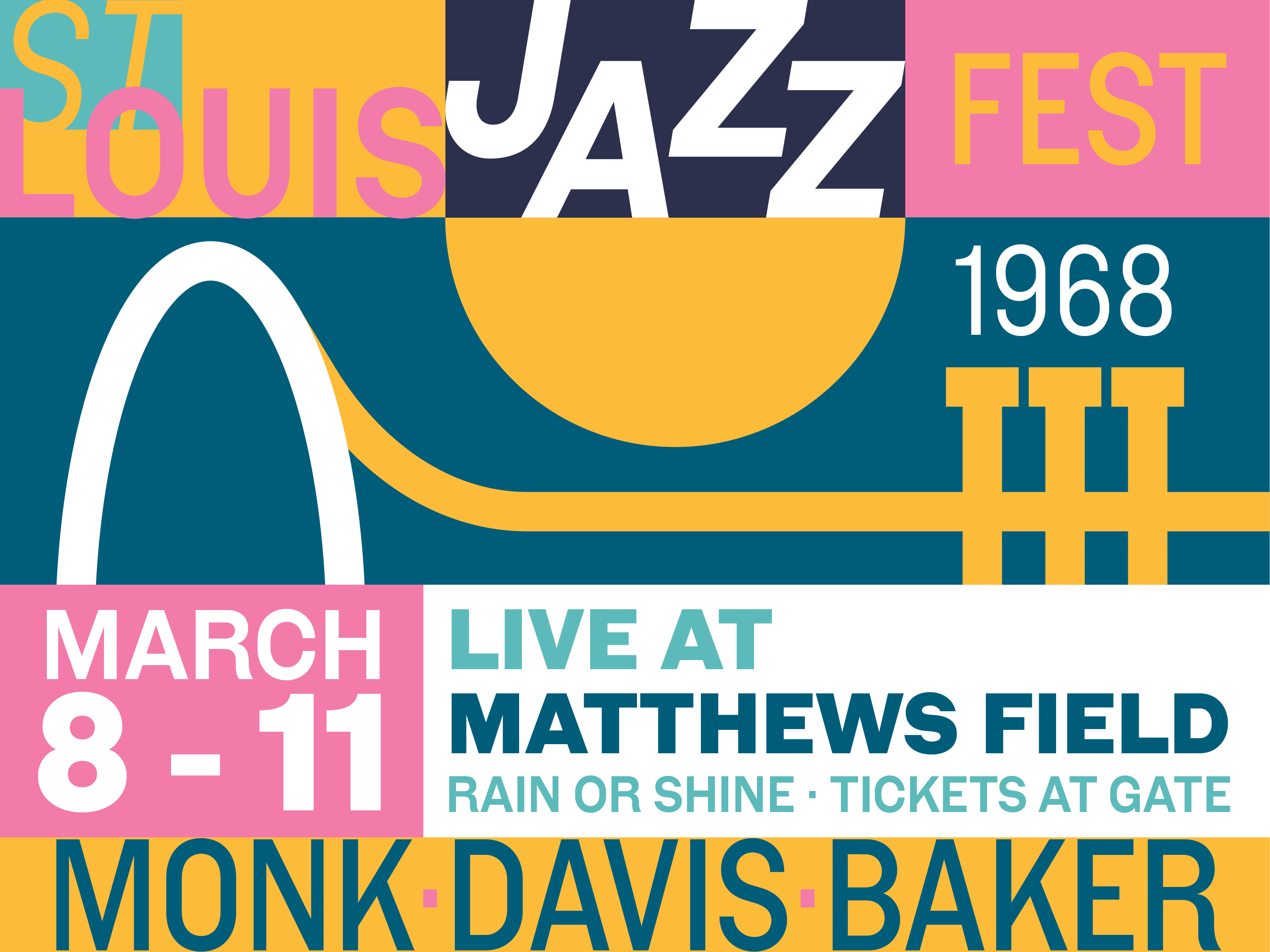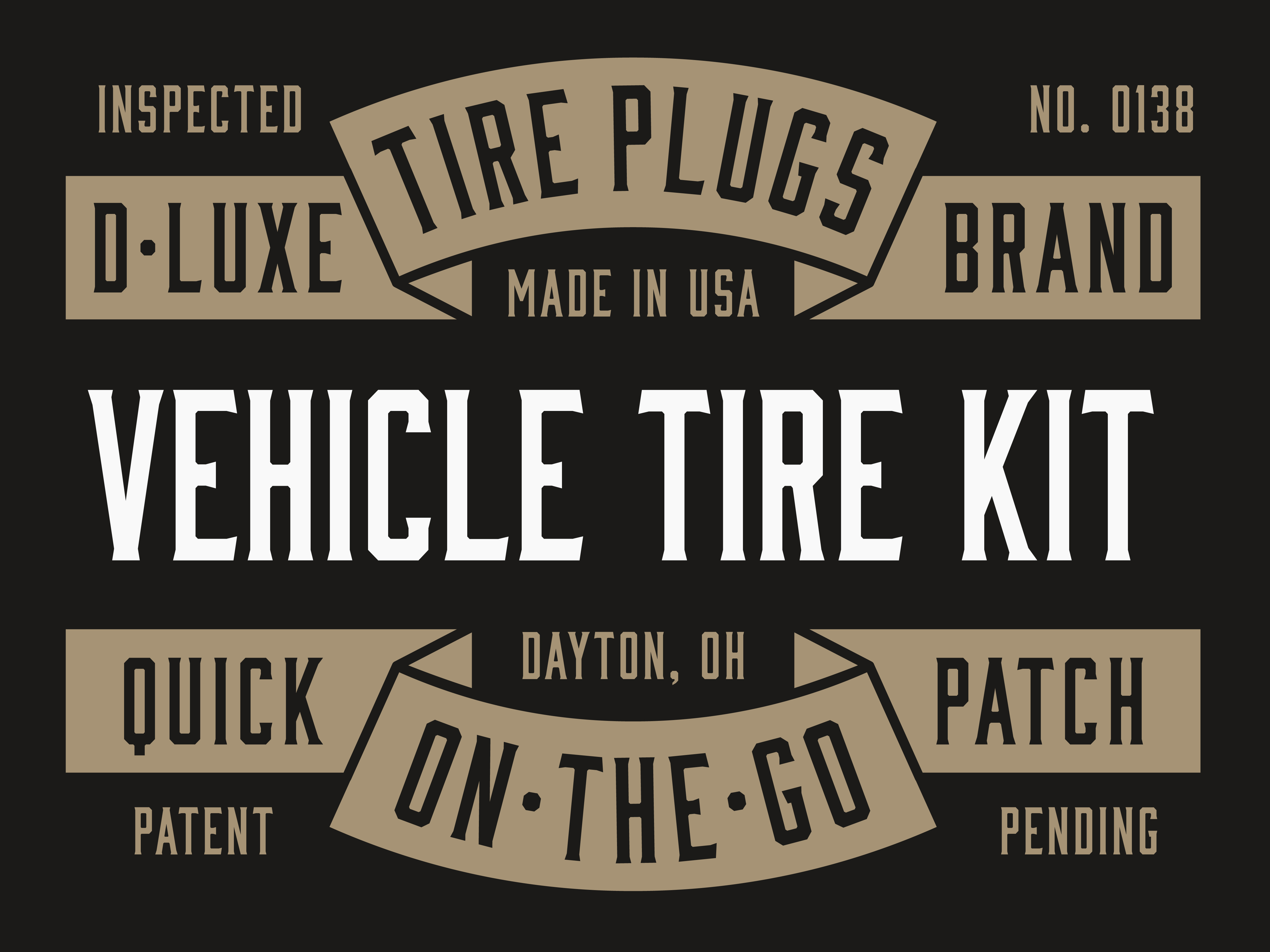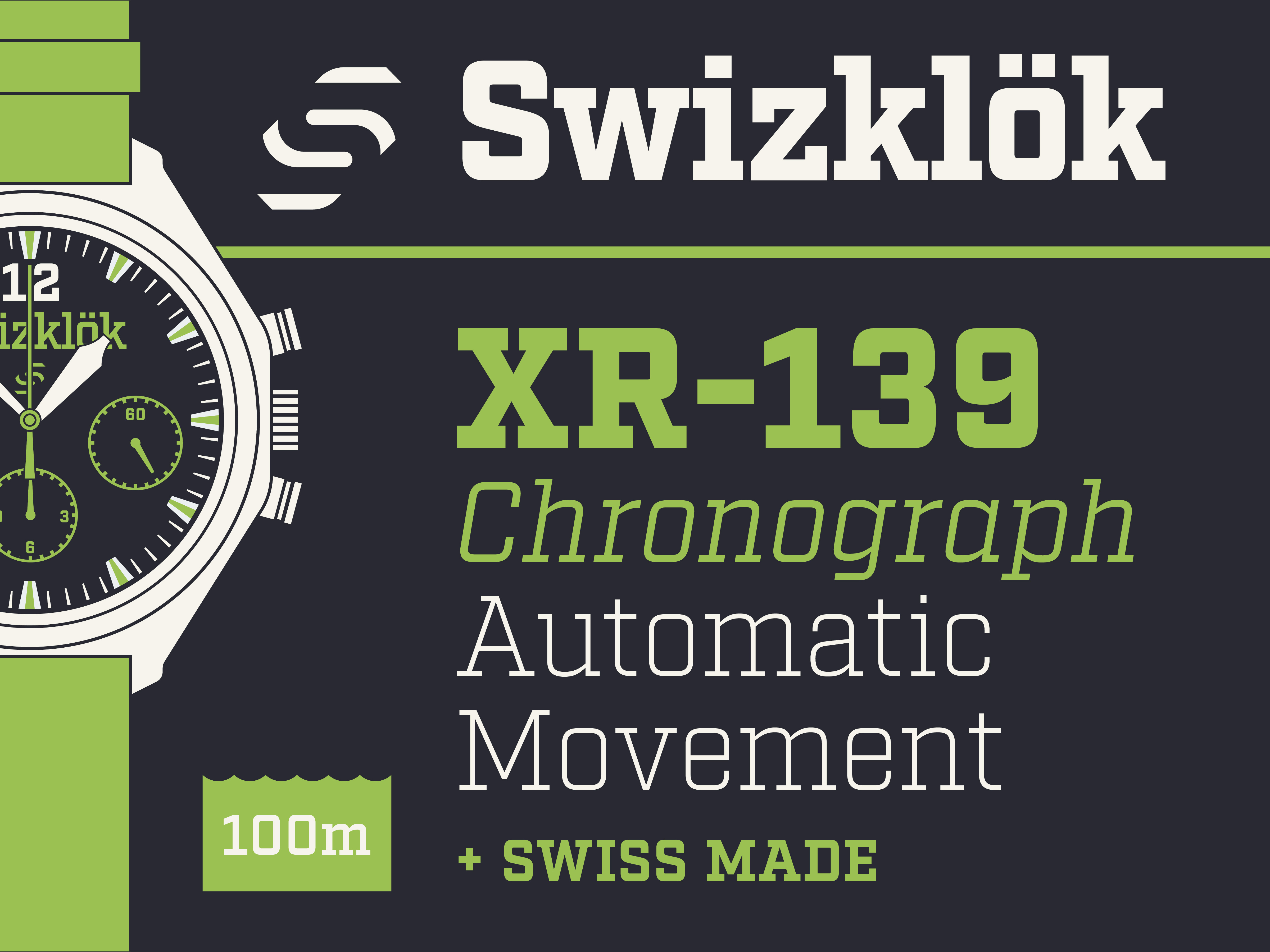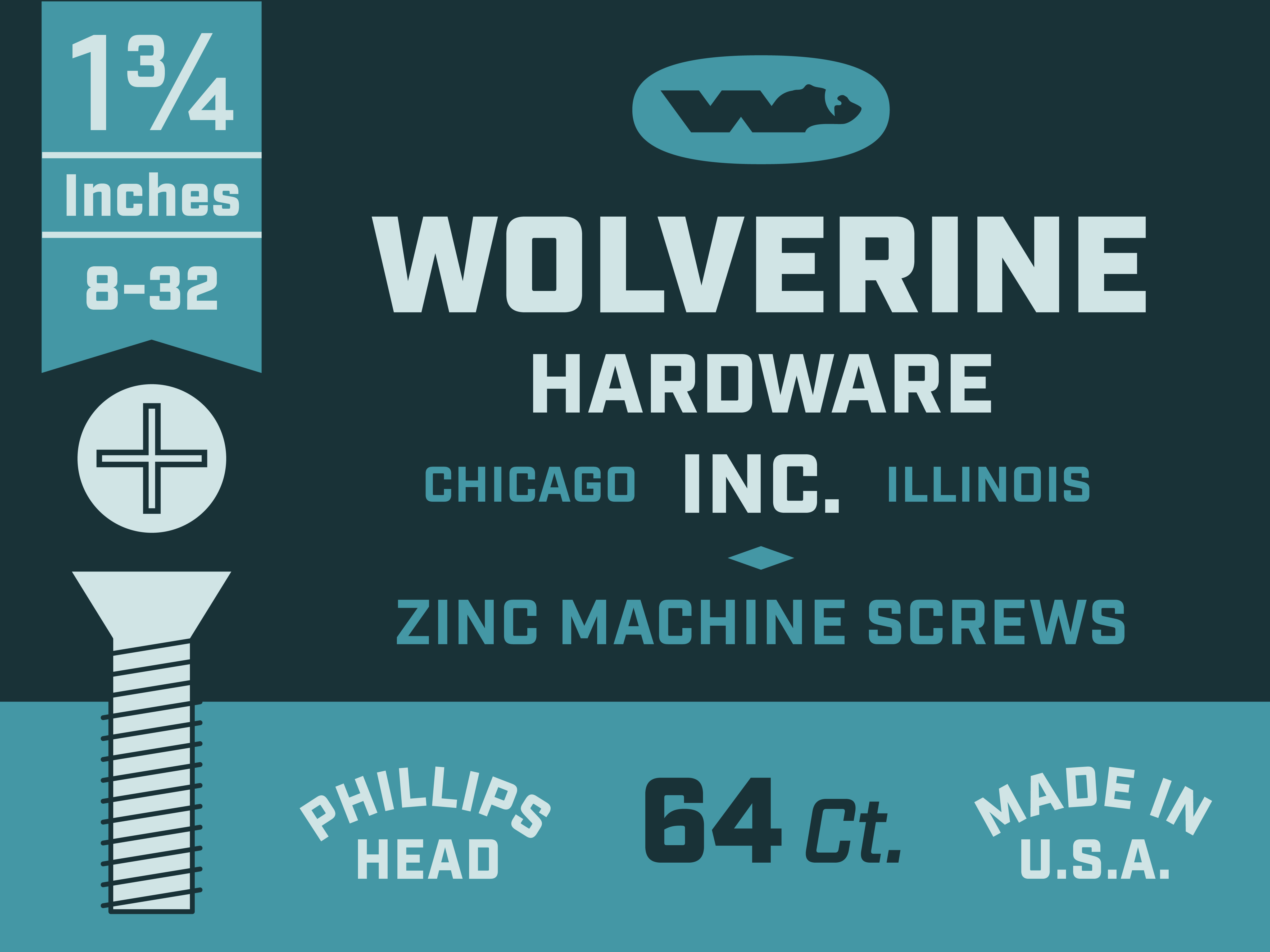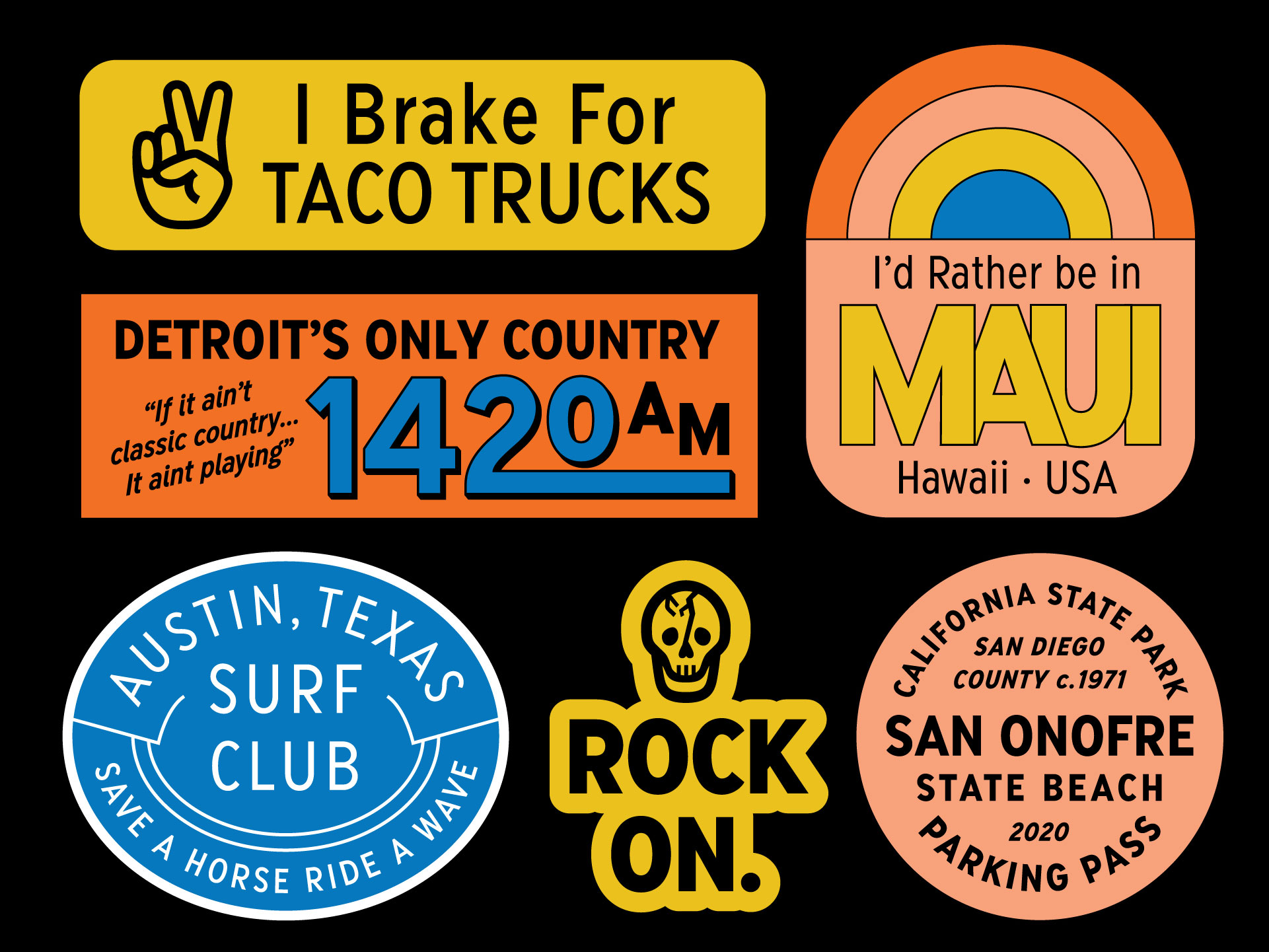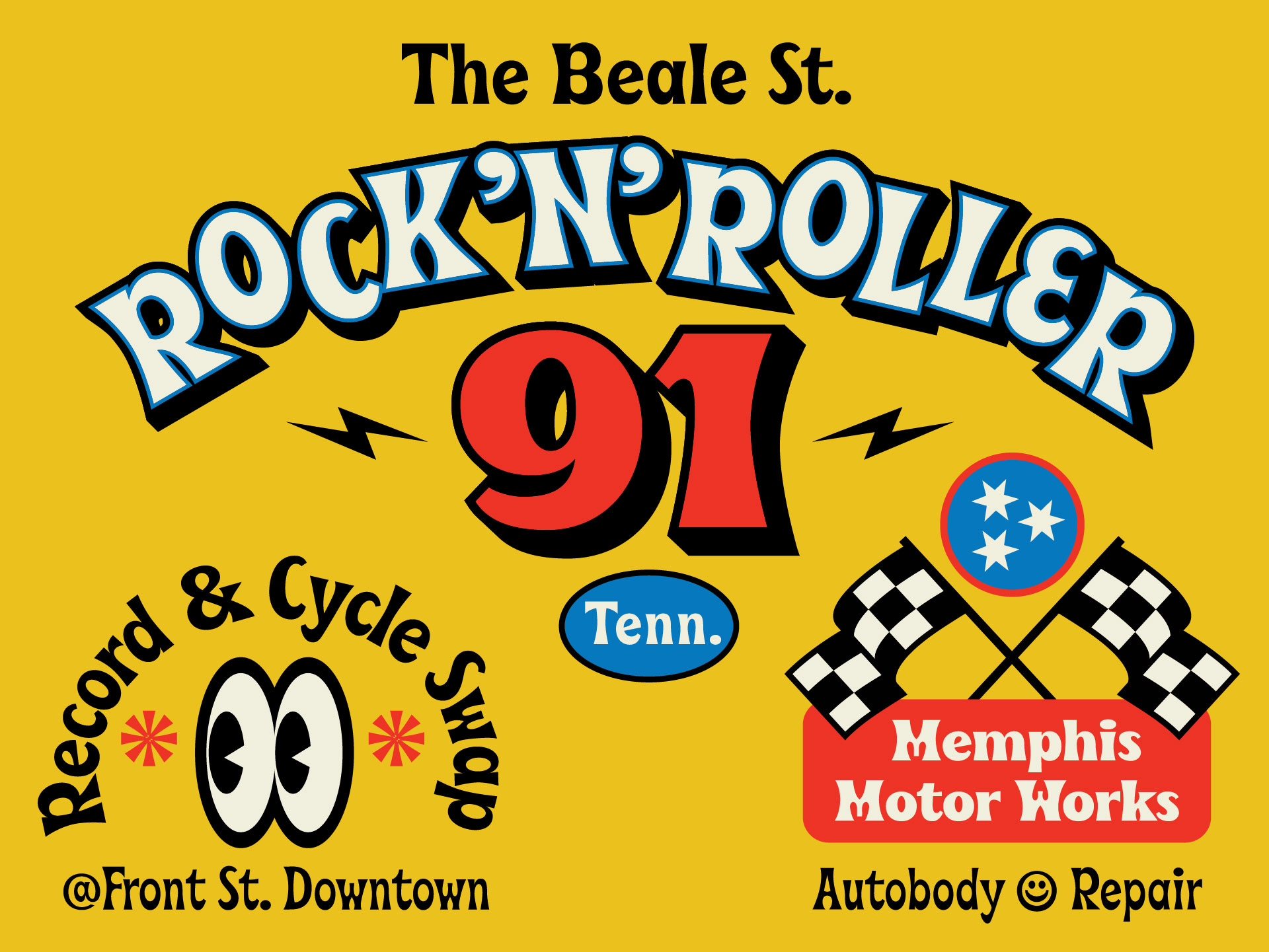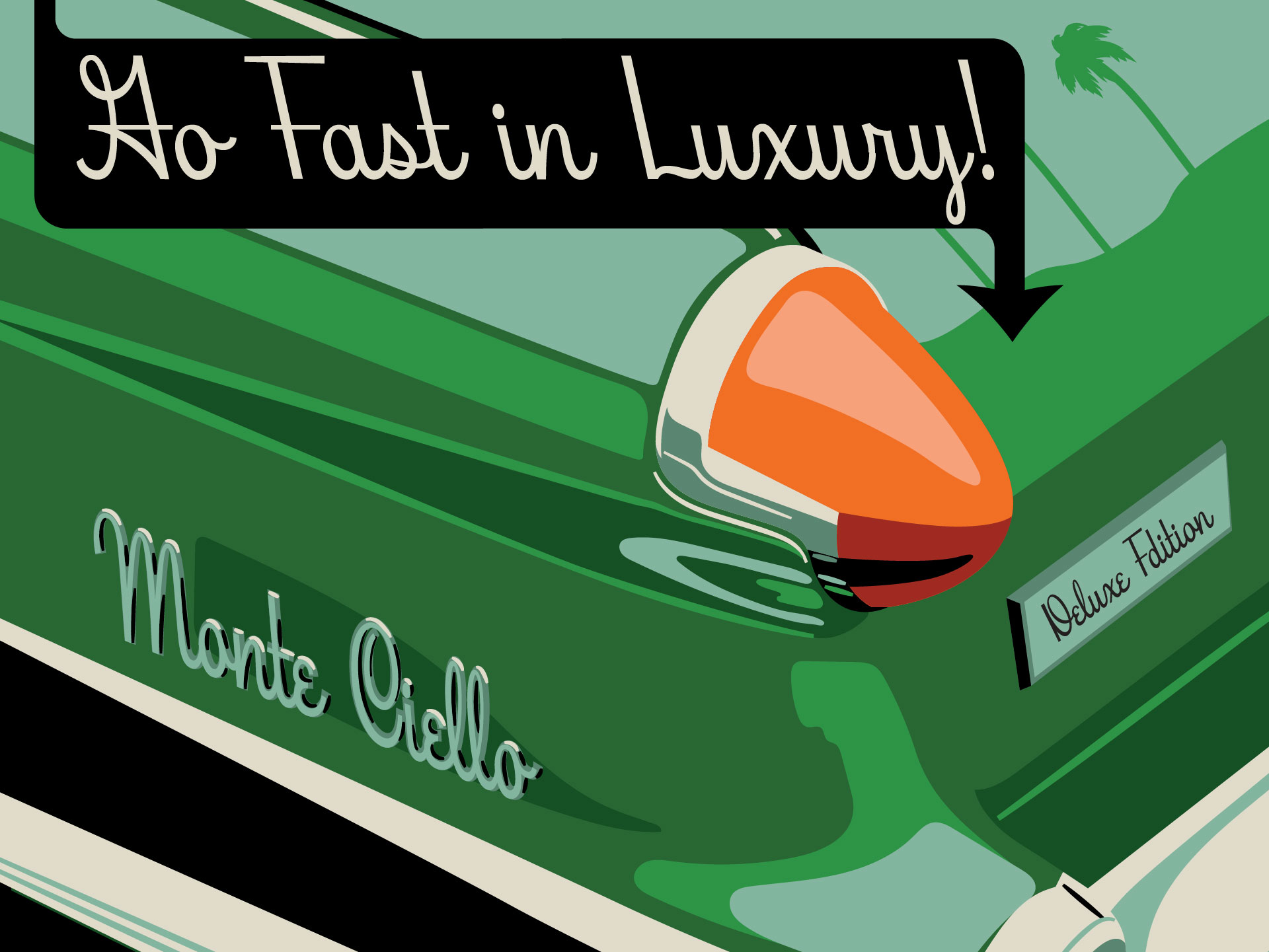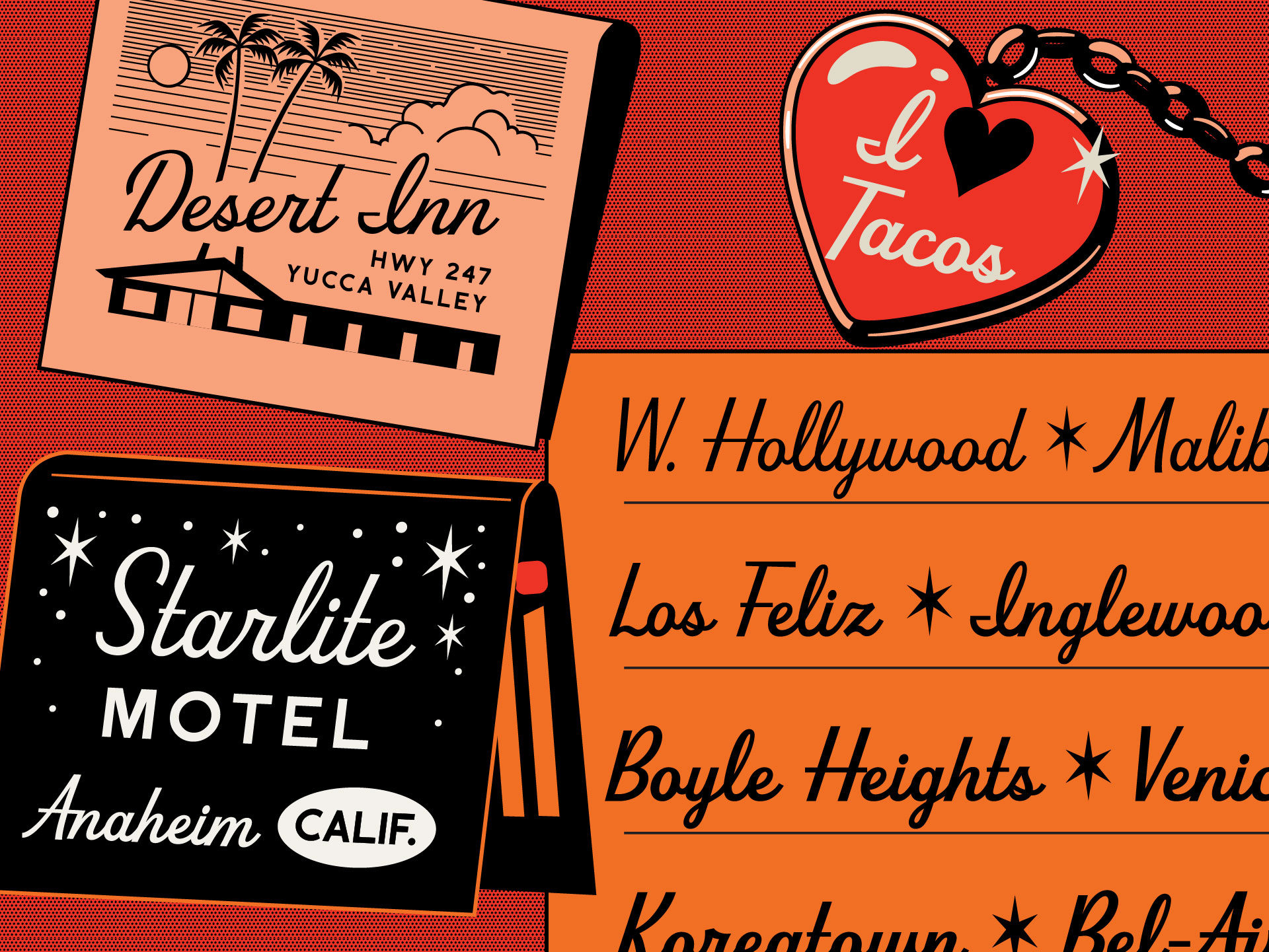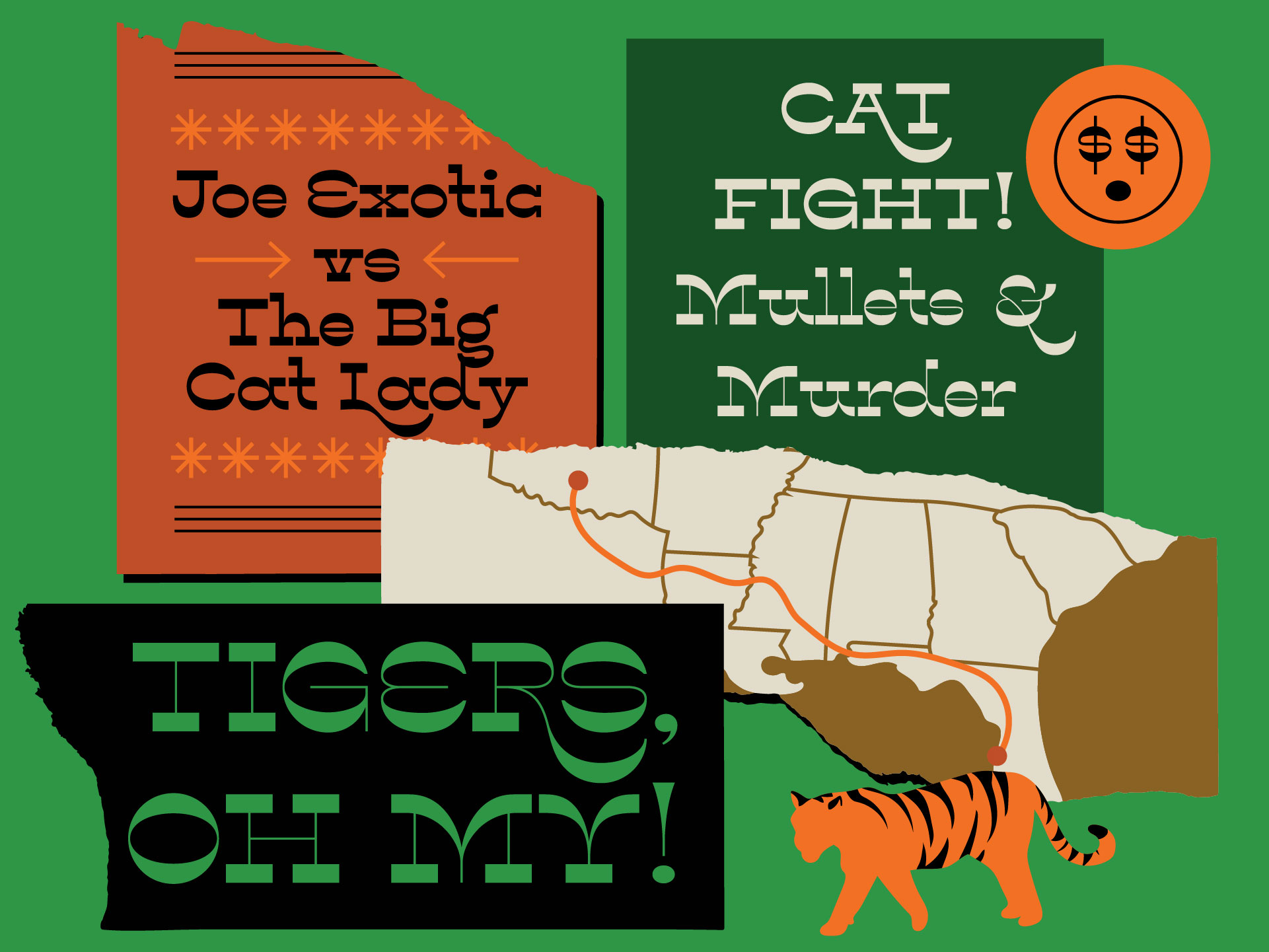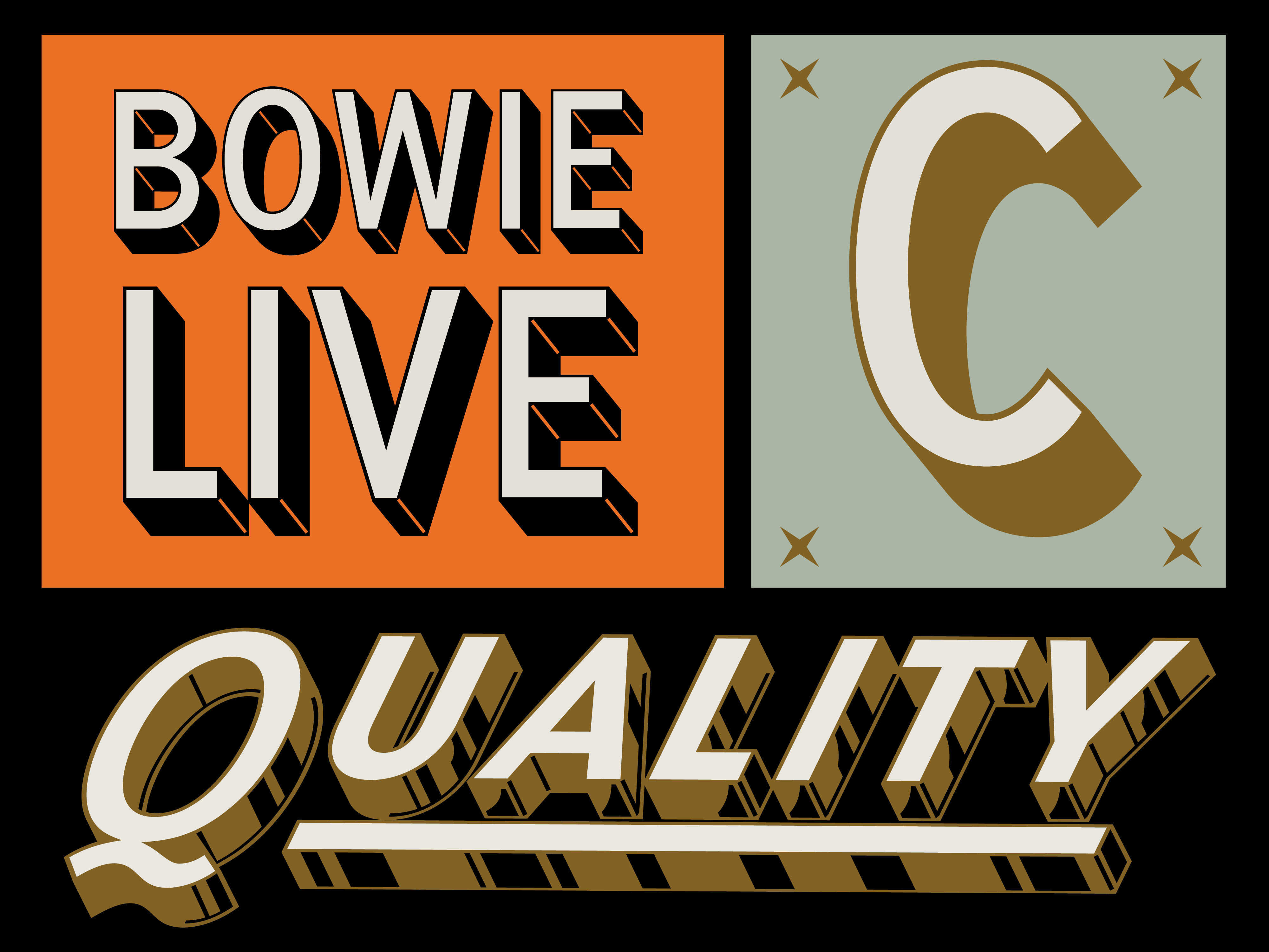
East Bay
Elegant but unfussy. Bougie but understated.
Silverberg
What if Futura went to a Halloween party in the late 70s dressed up as Dracula?
Scenic Sans
Take the scenic route.
Cambridge
An elevated, timeless serif typeface inspired by Bostonian history and academia.
Molfetta
As charming as the Italian coast and as chonky as Nonna’s lasagna!
Abolition
Condensed and dependable with an industrial work ethic.
Alkaline
A highly fun and functional mid-century script.
Beale
A funky, retro display serif inspired by Memphis, Tennessee!
Bearklaw
A playful powerhouse inspired by the geometry behind Futura Display.
Beverly Drive
A left-leaning script inspired by Beverly Hills.
Beverly Drive Right
A retro script based on its left-leaning namesake.
Blackbird
A workhorse sans with a hint of 20th century wood type.
Bourbon
A condensed display serif inspired by old whiskey bottles.
Bowery Lane
Somewhere between a Scotch Modern, Transition, and Slab serif—with curl swash alts to boot!
Chapman Ave
A dimensional display family with built-in chrome and drop shadow effects.
Cinder
A classic blackletter enchanted with a dose of modern magic.
Colt
Like a muscle car from decades ago, Colt aims to balance unbridled power and finesse.
Factoria
A hard-working family that can jump from an industrial building to a sports magazine in a jiffy.
Fieldstone
Built like something ancient and engineered at the same time.
Figure
Work hard. Play hard. Go Figure.